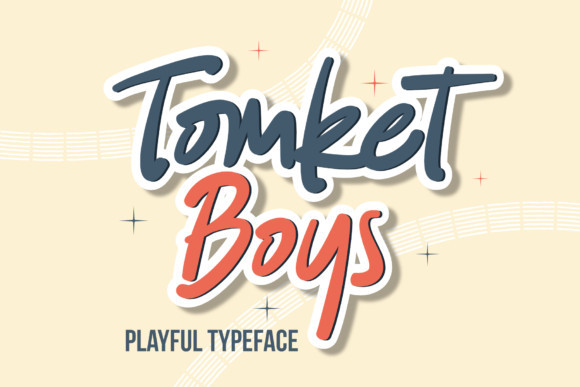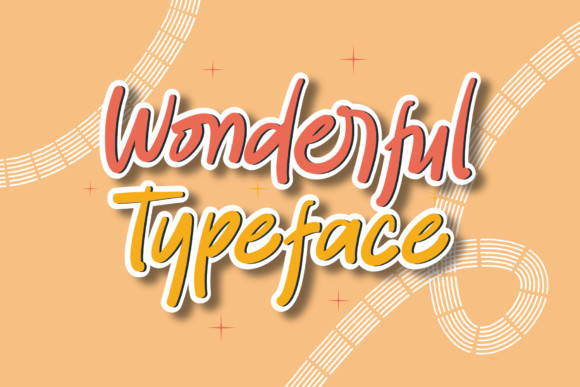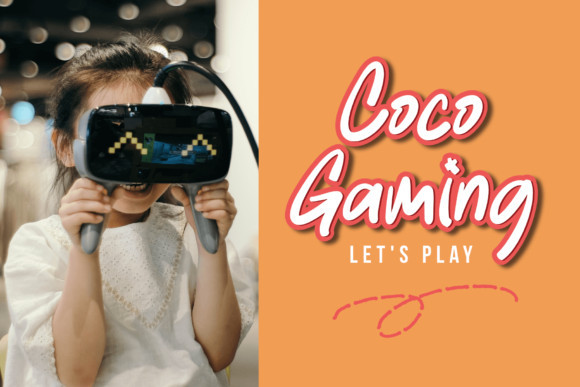
Tomket Boys Font
Tomket Boys is a fun and relaxing handwritten font. Clean and a little bit quirky, this font is the perfect fit for all of your logos, branding, social media, and crafty DIY projects.